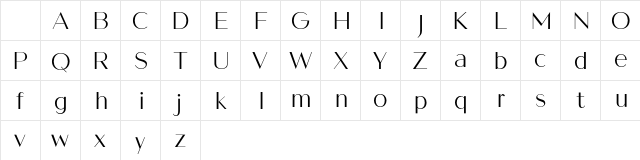
Mikea Demo is a composed and adaptable typeface that performs quietly and consistently across a wide range of design contexts.
Pro Tip: Use Mikea Demo in both headline and body roles to test its range before committing to a single application.